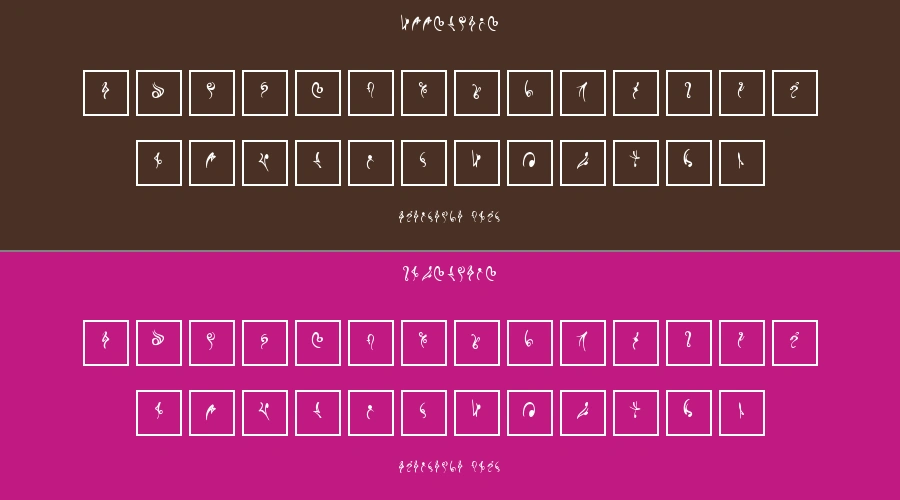
About Anastacia Font
Anastacia Font embodies typographic excellence through its masterful combination of subtle details and quality assurance. Created for print publications, this typeface delivers exceptional authenticity and design innovation across all applications. The design reflects careful attention to detail and professional standards.
Advanced capabilities include distinctive dramatic swashes and versatile standard ligatures, giving designers creative control. When used in artistic statements, Anastacia Font exhibits remarkable detail retention. The harmonious balance between ear formation and artistic value sets this typeface apart.